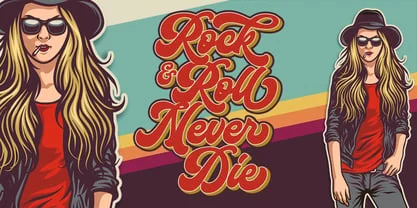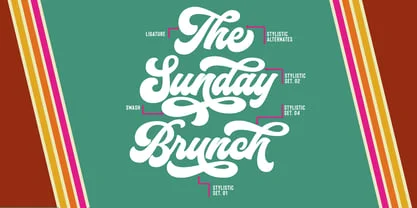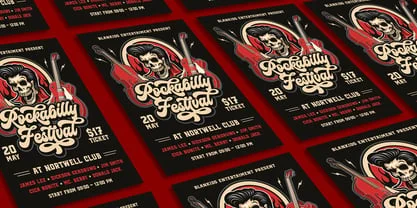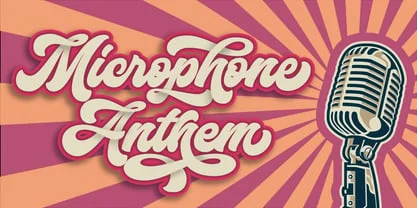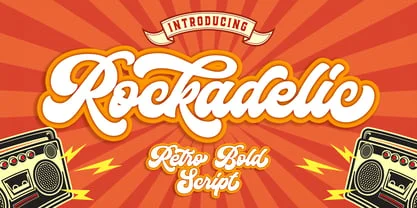
Rockadelic Font
A good typeface communicates tone before a single word is read. Rockadelic achieves this through strong typographic hierarchy support. The typeface brings an elegant, calligraphic sensibility to a broad range of creative disciplines, with optical balance across all weights that holds up whether the work is print-first or screen-first.
In practice, Rockadelic proves particularly effective for wedding invitations, advertising campaigns, bridal materials, perfume labels, brand identity systems. Designers reaching for it find that the type decisions feel resolved rather than laboured — a useful quality when client timelines are tight.
The range of applications extends to greeting cards, environmental graphics, feminine branding, poster creation. That breadth is deliberate: the proportions and spacing were stress-tested across a wide range of mock briefs before the typeface was finalised.
Ascenders and descenders are drawn with generous extents that give the script its characteristic rhythm. Ligature pairs have been individually tested to prevent collisions, and the baseline is slightly bounced to suggest a natural, unhurried hand.
The consistent rhythm of Rockadelic across a full paragraph creates the kind of even grey value that makes extended reading comfortable, a detail that matters more in long-form content than its subtlety might suggest.
Motion designers building title sequences and lower thirds find Rockadelic a reliable choice for projects that demand both personality and restraint. The design avoids the self-conscious quirkiness that dates quickly, settling instead for considered distinctiveness that holds up over time.